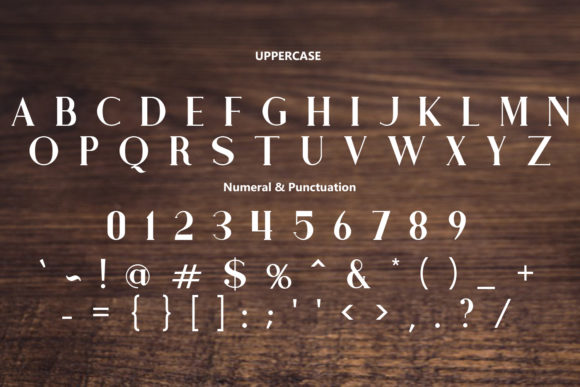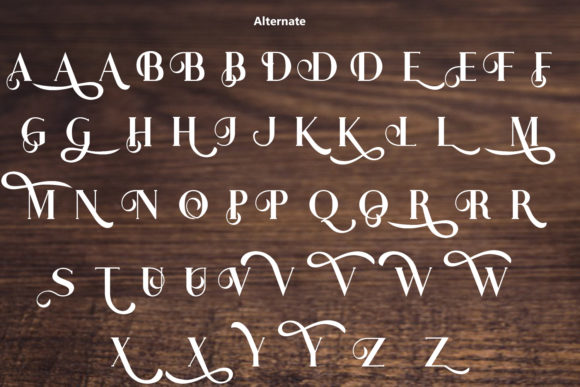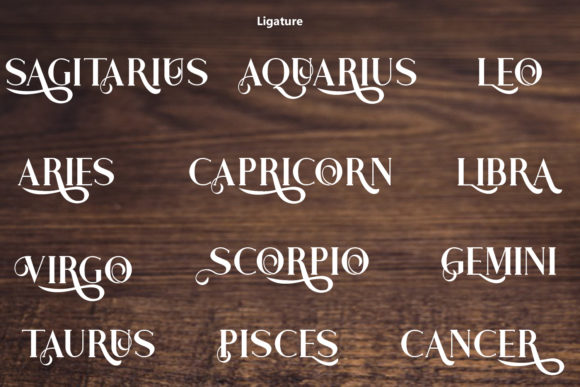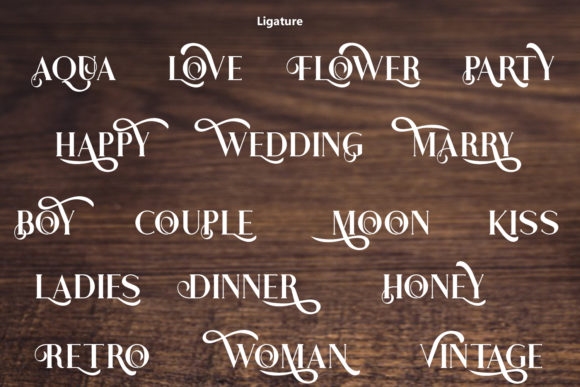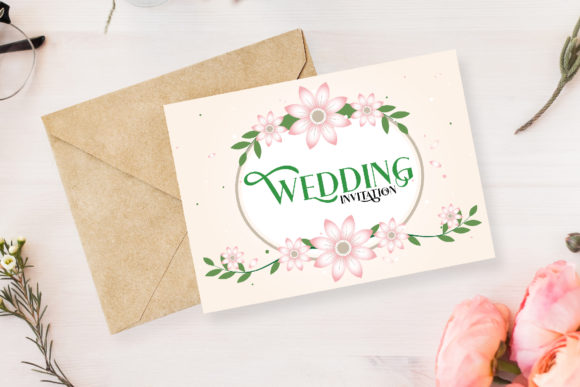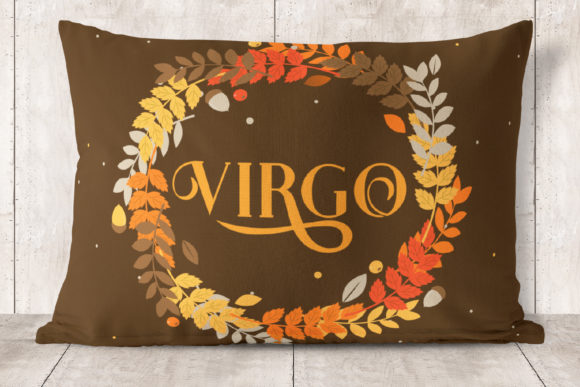
Dawet Font: A Sweet and Simple Serif Font with Elegant Swashes
Are you a designer or crafter looking for a unique and elegant font to add a touch of sophistication to your projects? Look no further than Dawet Font, a sweet and simple serif font that is sure to inspire. With its beautiful and elegant swashes, Dawet Font is the perfect choice for anyone looking to add a bit of charm to their designs.
What is Dawet Font?
Dawet Font is a serif font that is characterized by its simple and sweet design. It features elegant swashes that add a touch of sophistication and elegance to any project. The font is perfect for designers and crafters who want to create beautiful and unique designs that stand out from the crowd.
Unique Features of Dawet Font
So, what makes Dawet Font so special? Here are just a few of its unique features:
- Sweet and Simple Design: Dawet Font has a sweet and simple design that is easy to read and looks great in any project.
- Elegant Swashes: The font features beautiful and elegant swashes that add a touch of sophistication and elegance to any design.
- Versatile: Dawet Font is a versatile font that can be used in a variety of projects, from wedding invitations to branding and packaging.
Uses for Dawet Font
Dawet Font is a versatile font that can be used in a variety of projects, including:
- Wedding Invitations: The font’s elegant swashes make it perfect for wedding invitations and other wedding-related projects.
- Branding and Packaging: Dawet Font is a great choice for branding and packaging projects, adding a touch of sophistication and elegance to any product.
- Signage: The font’s simple and sweet design makes it easy to read, making it perfect for signage projects.
- Stationery: Dawet Font is a great choice for stationery projects, such as letterheads and business cards.
Tips for Using Dawet Font
Here are a few tips for using Dawet Font in your projects:
- Use it with a contrasting font: Pair Dawet Font with a contrasting font to create visual interest and add depth to your design.
- Experiment with different sizes: Try using Dawet Font in different sizes to create a hierarchy of text and add visual interest to your design.
- Add a pop of color: Use a bold or bright color to add a pop of color to your design and make it stand out.
Dawet Font is a sweet and simple serif font with beautiful and elegant swashes that is sure to inspire designers and crafters. With its versatile design and easy-to-use features, Dawet Font is the perfect choice for anyone looking to add a touch of sophistication and elegance to their projects. Whether you’re working on a wedding invitation, branding project, or signage, Dawet Font is a great choice. So why not give it a try and see the difference it can make in your designs?